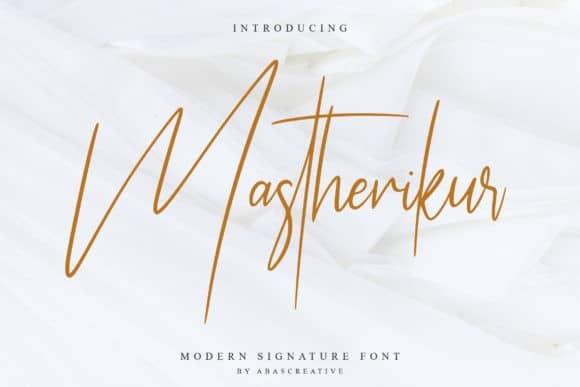
Introducing Mastherikur Font! A bouncy & fun handwritten font with zest for life. With a lively energy and a signature-style motion, Mastherikur Font is guaranteed to add an eye-catching appeal to your logo designs, branding material, handwritten quotes, product packaging, merchandise & social media posts.